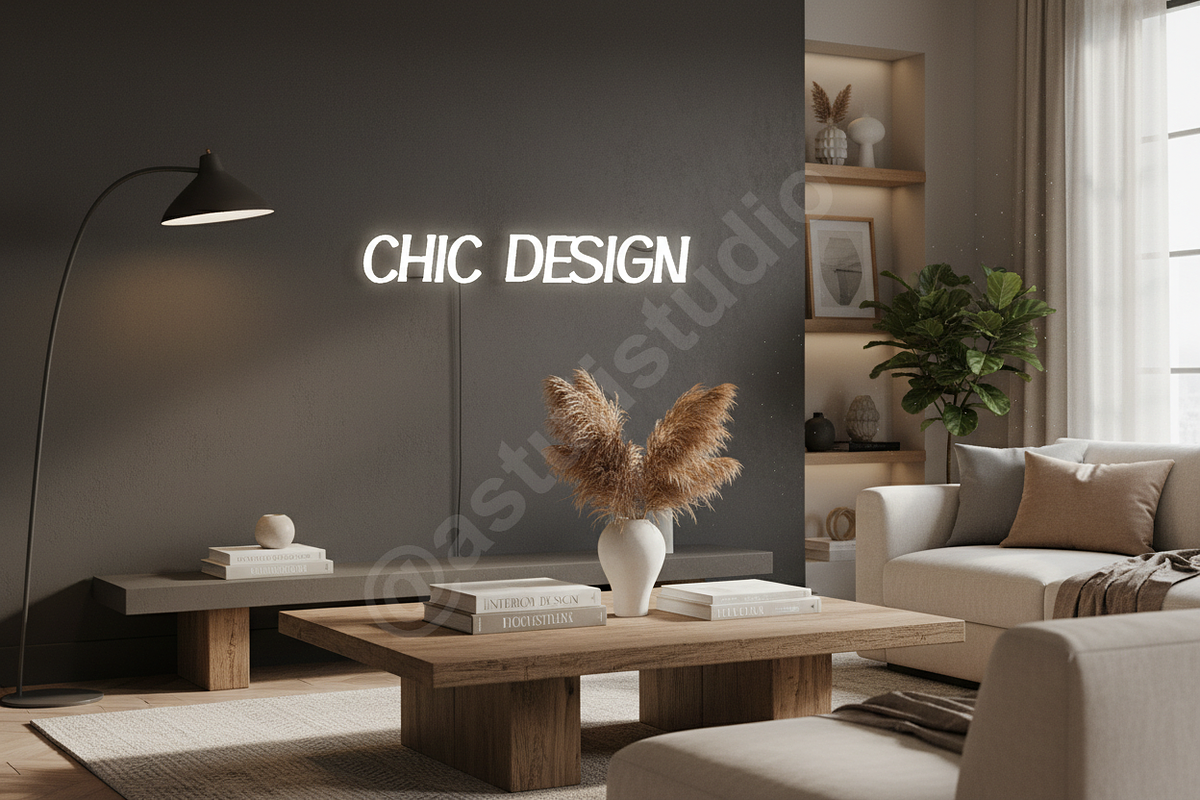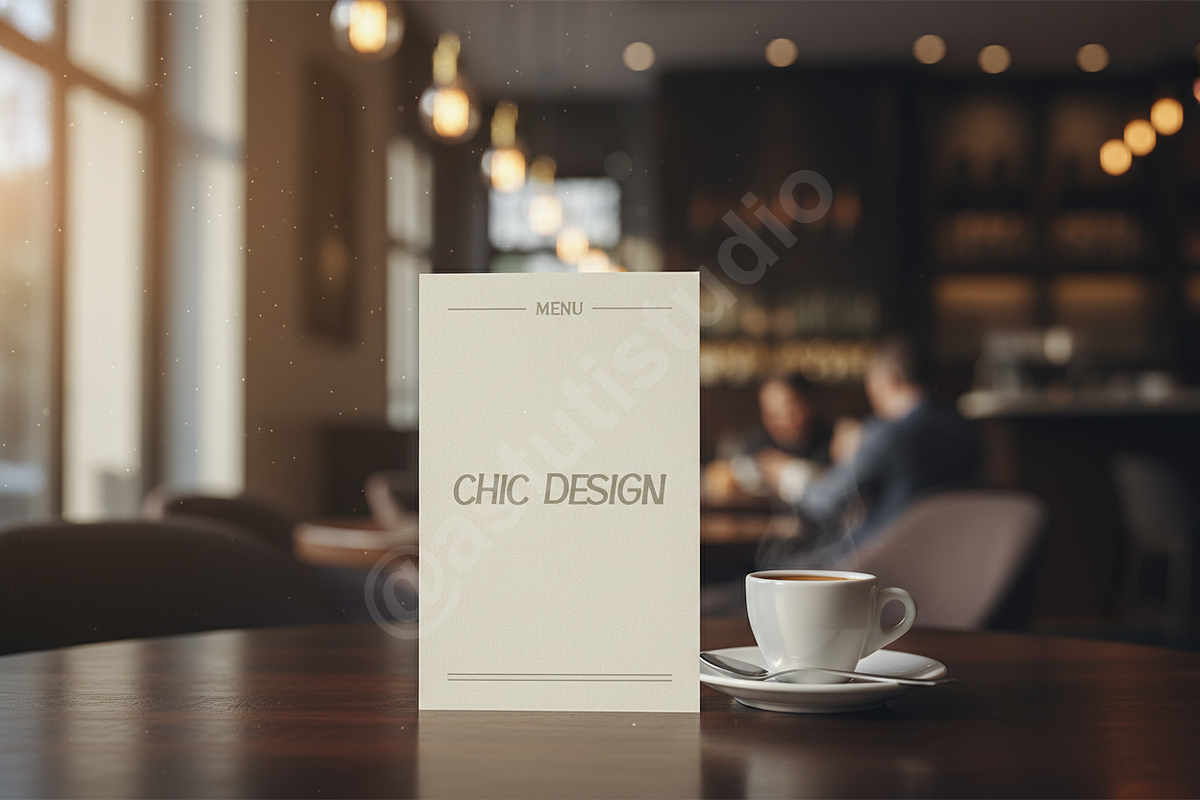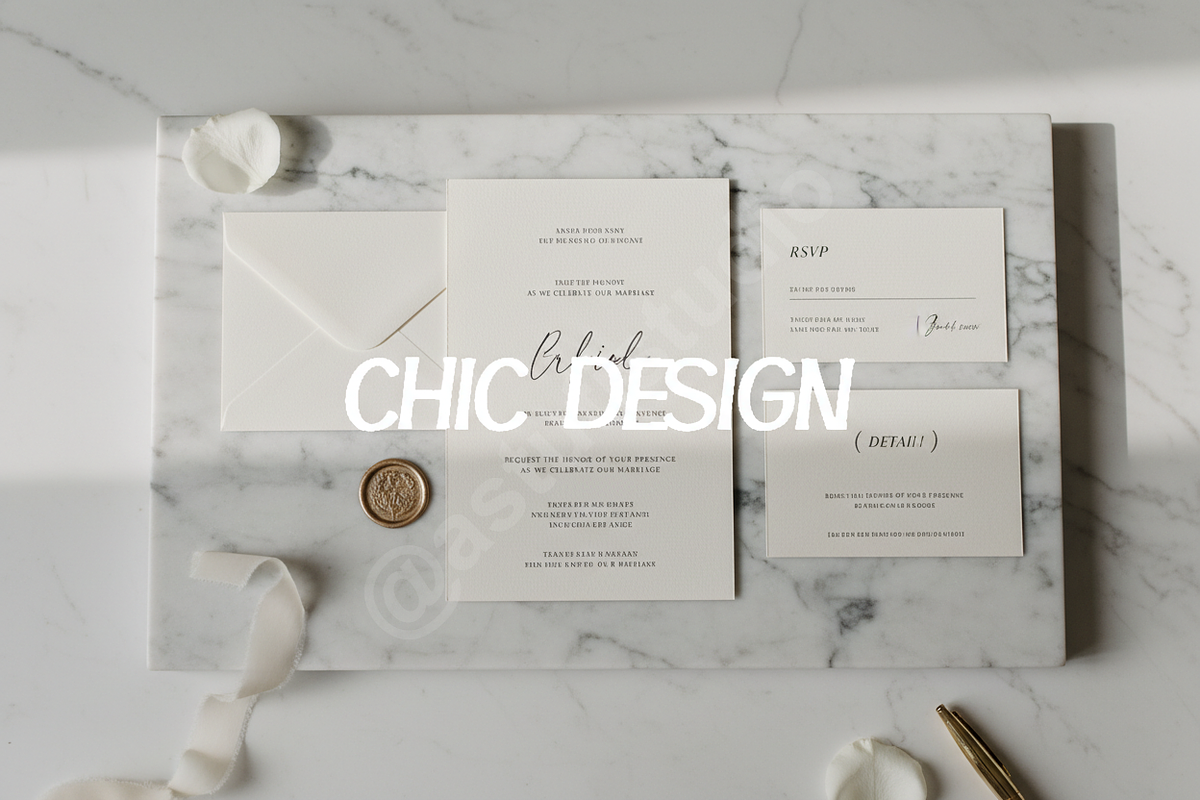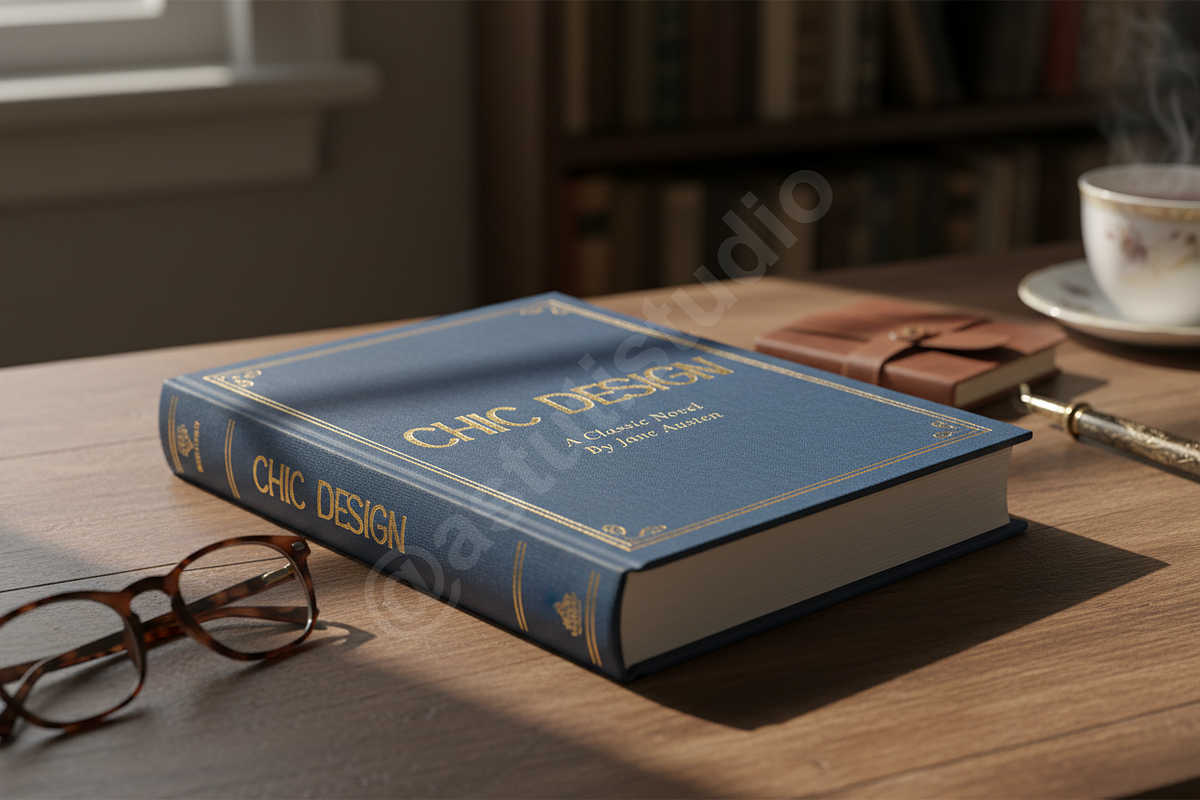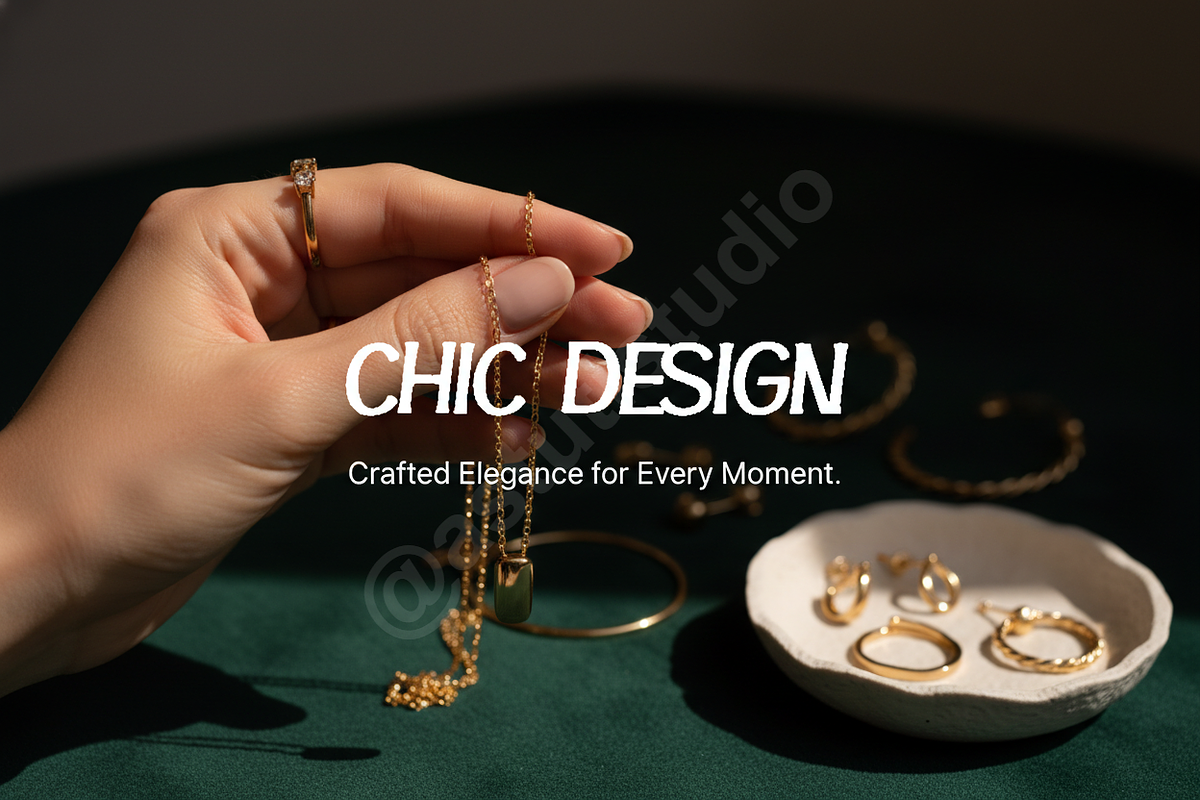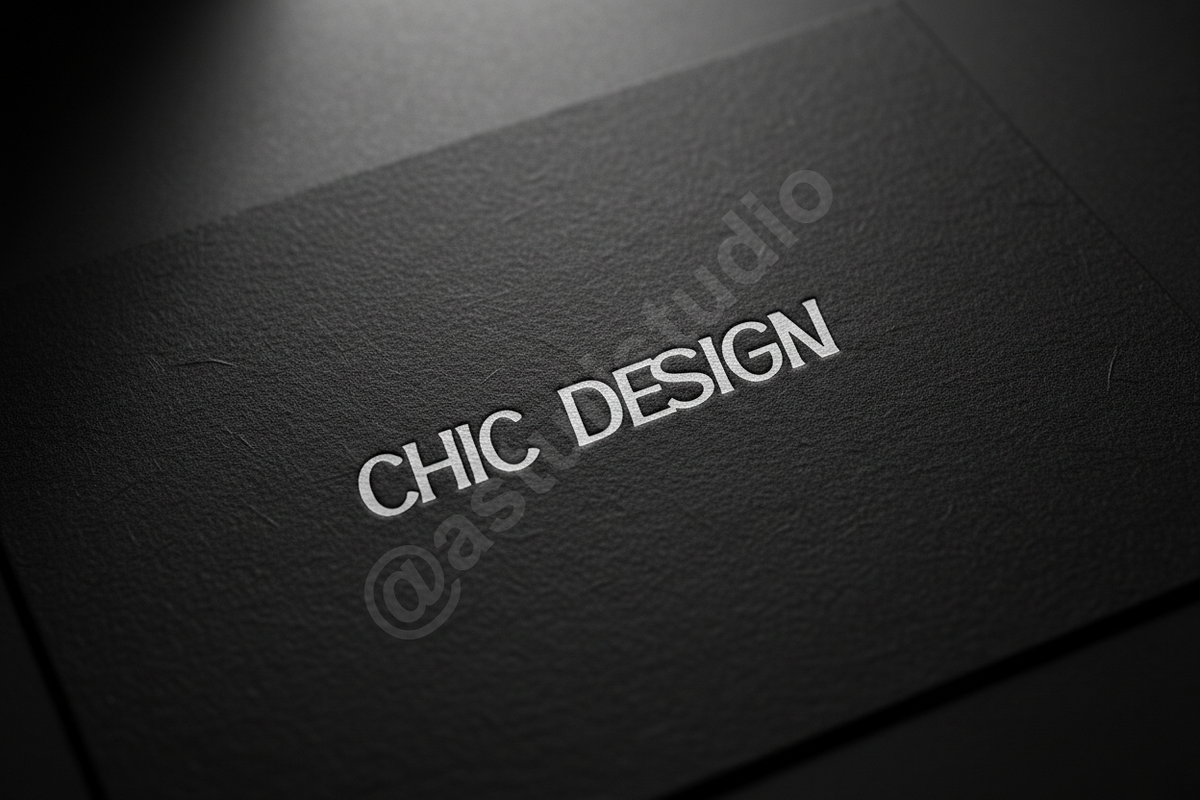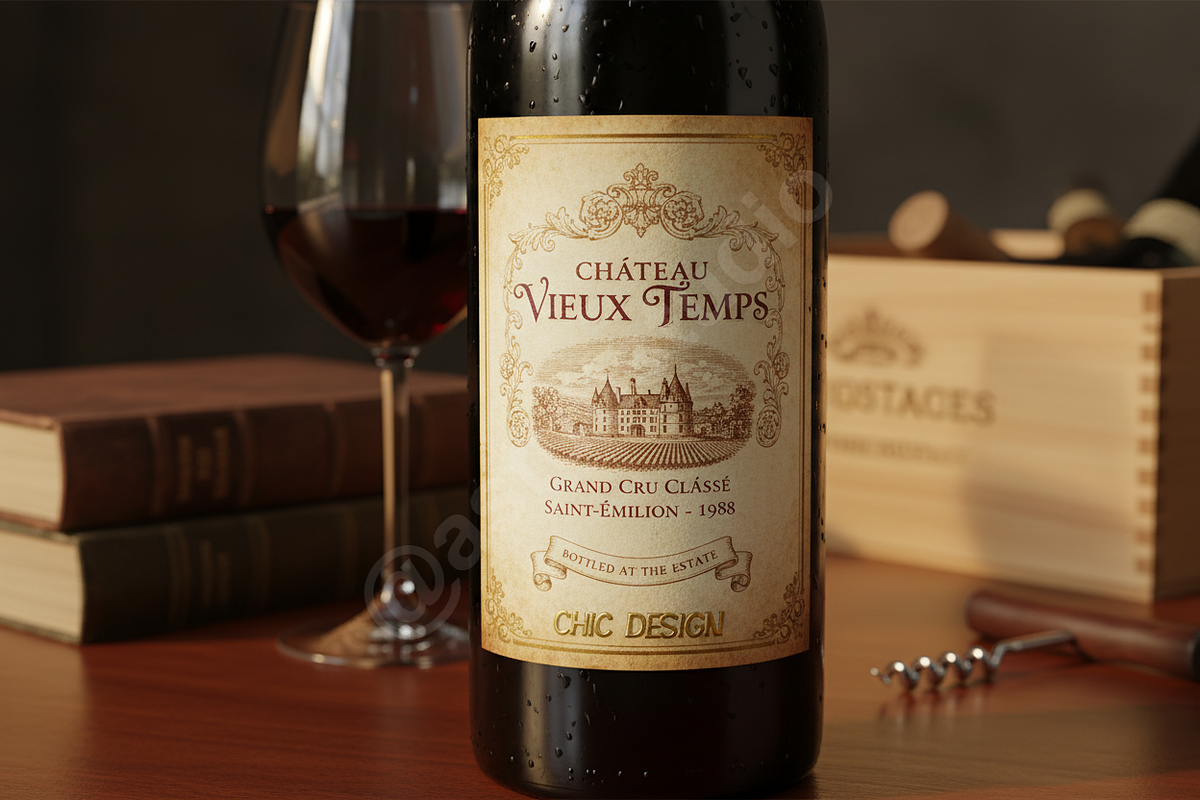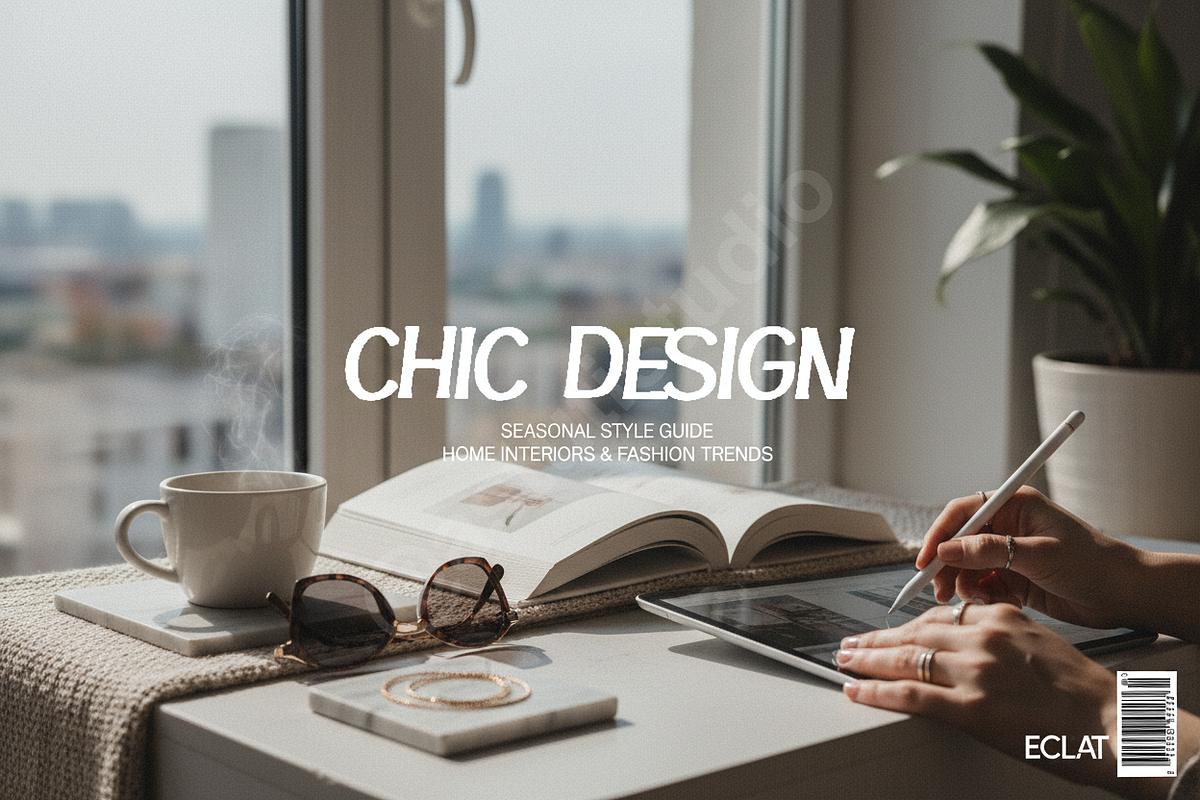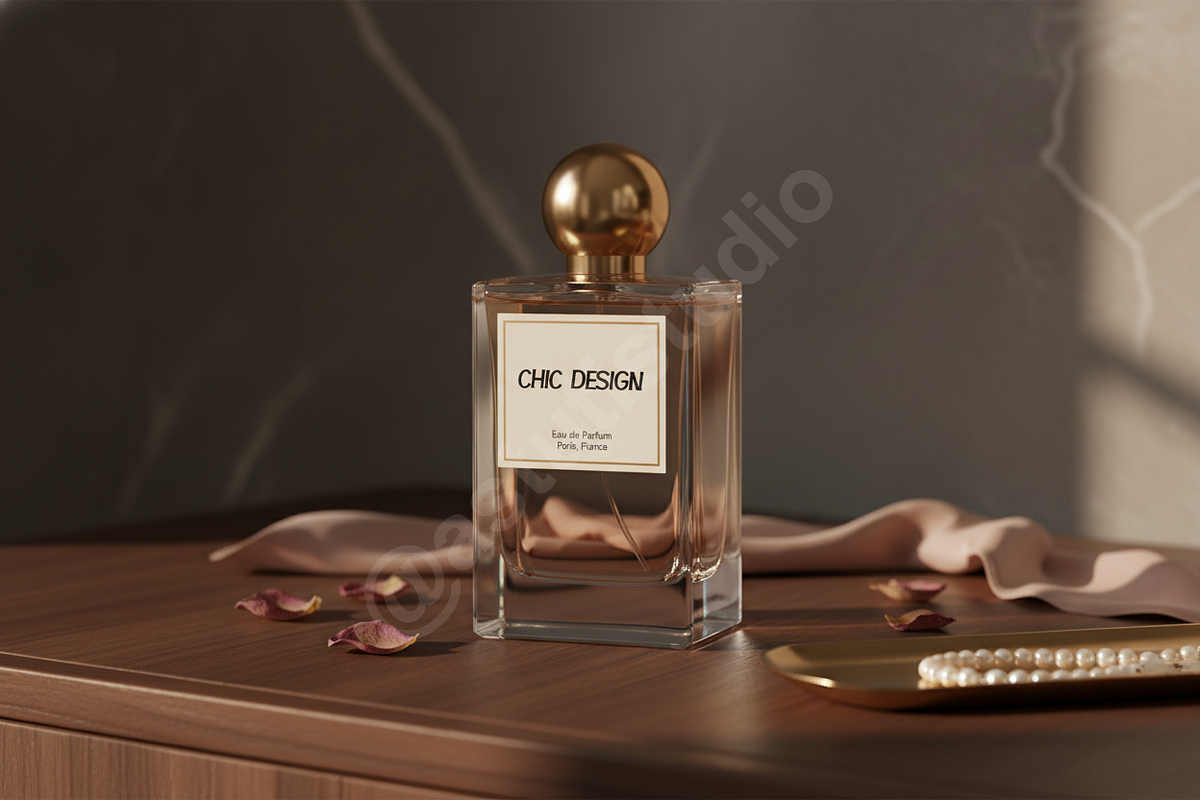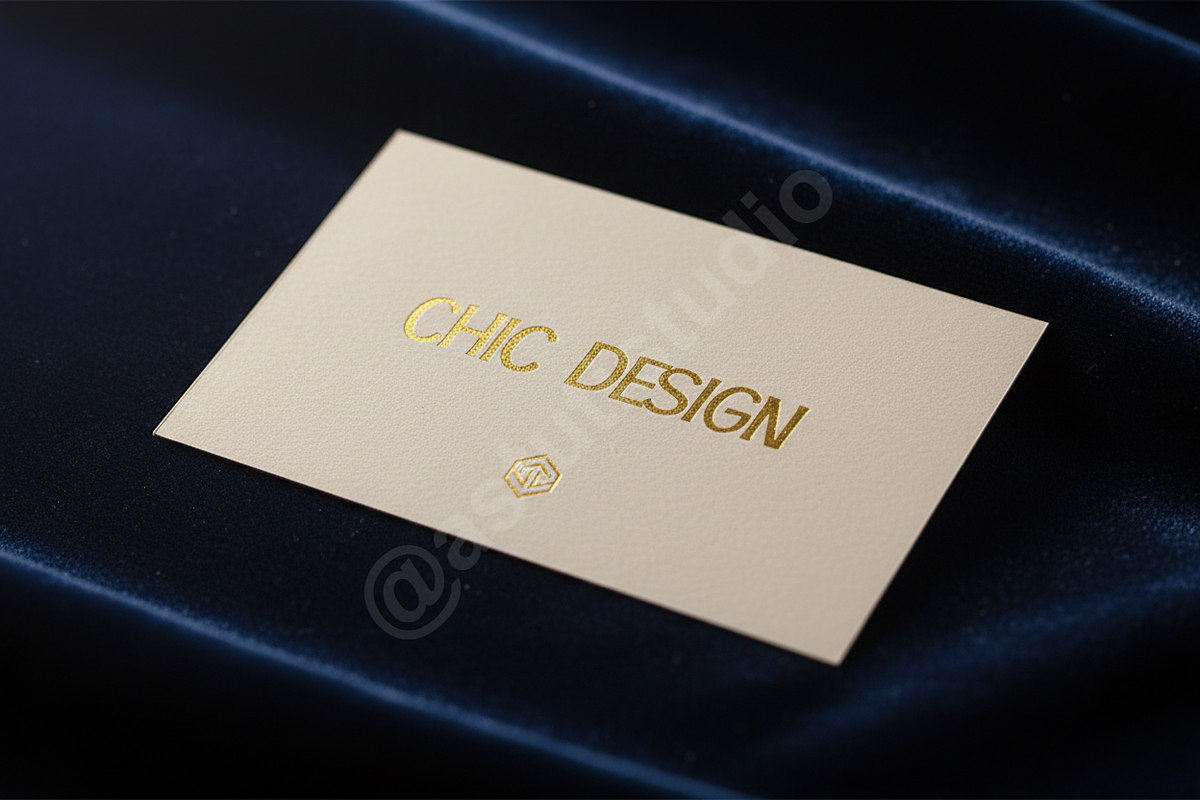
Fusu Typeface: Elegant Serif for Lux
Introducing Fusu—a sophisticated serif typeface designed for projects demanding refined elegance and timeless appeal. Fusu blends classic proportions with subtle contemporary adjustments, resulting in a perfectly balanced aesthetic suitable for high-end visual communication. This typeface is the definitive choice for design studios seeking a premium look, whether applied to intricate editorial layouts, iconic luxury branding identities, or impactful, stylish social media campaigns.
KEY FEATURES
- Luxury Standard: Optimized metrics ensuring exceptional readability in both large display settings and body text, ideal for high-resolution print and crisp digital display.
- Opulent OpenType Features: Includes a comprehensive set of elegant ligatures, stylistic alternatives, and discretionary ligatures to personalize your typographic expressions and enhance logotype development.
- Versatile Weight Options: Includes Regular, Bold, and corresponding Italics to provide depth and hierarchy across all your design assets.
- Extensive Multilingual Support: Robust glyph coverage supporting numerous Latin-based languages for global reach.
- Full set of Uppercase and Lowercase characters, Numerals, and extensive Punctuation.
- Standard and Discretionary Ligatures.